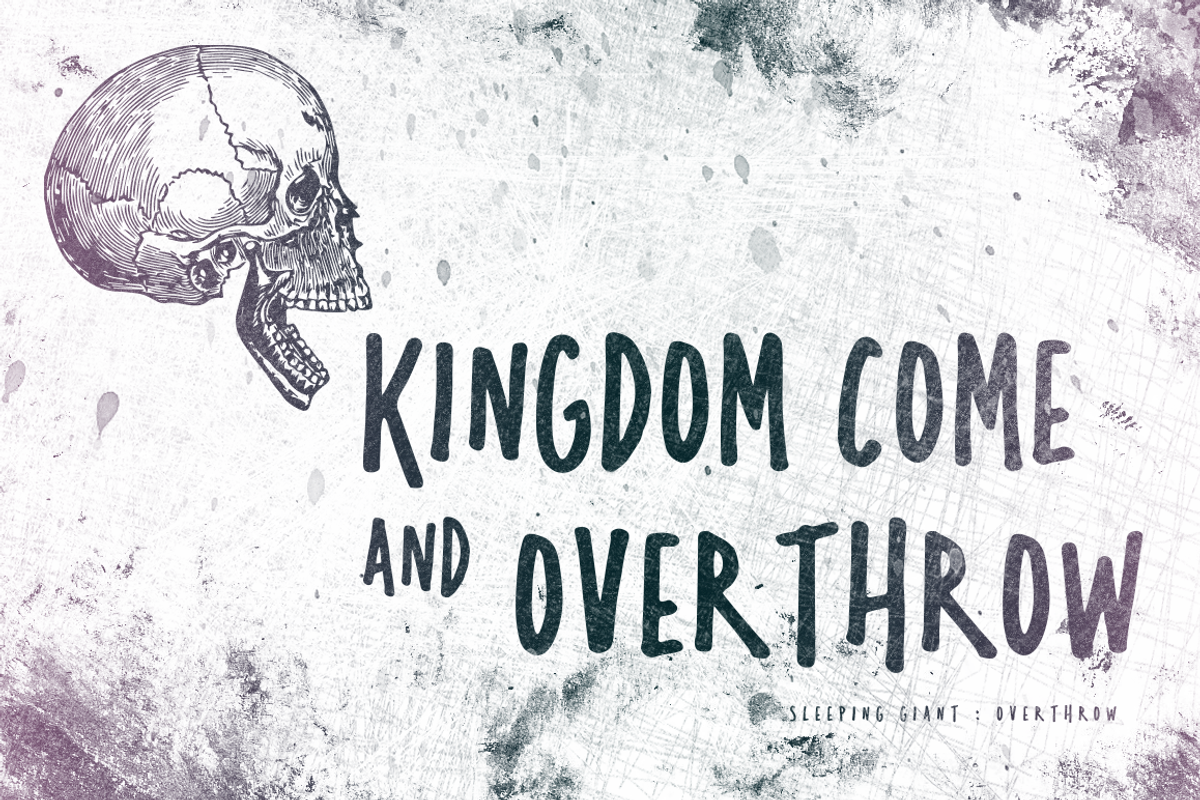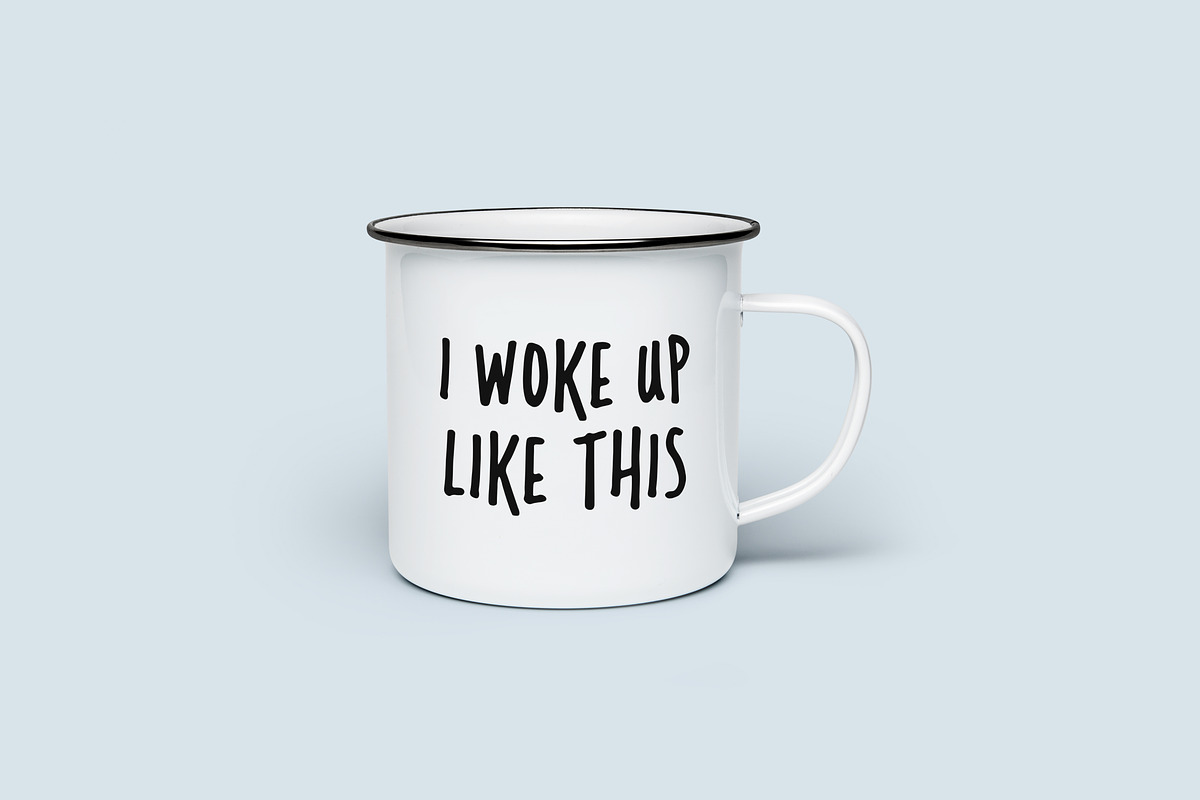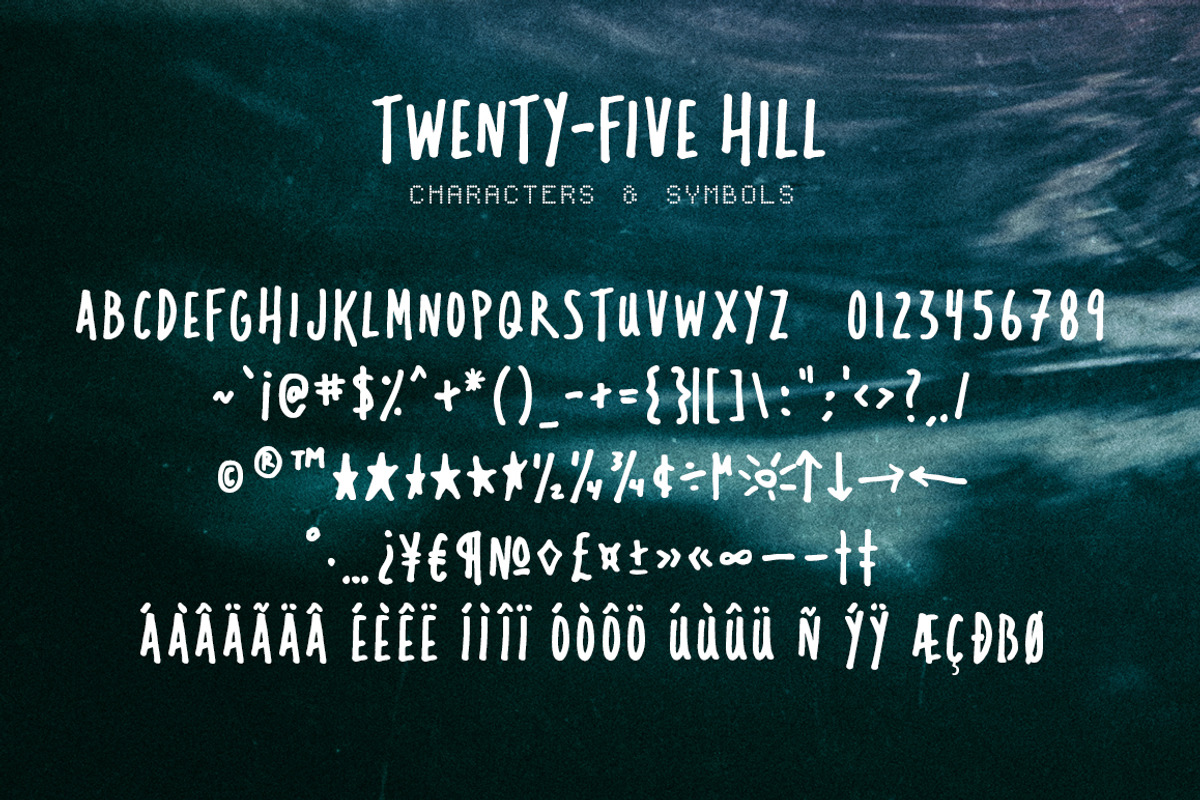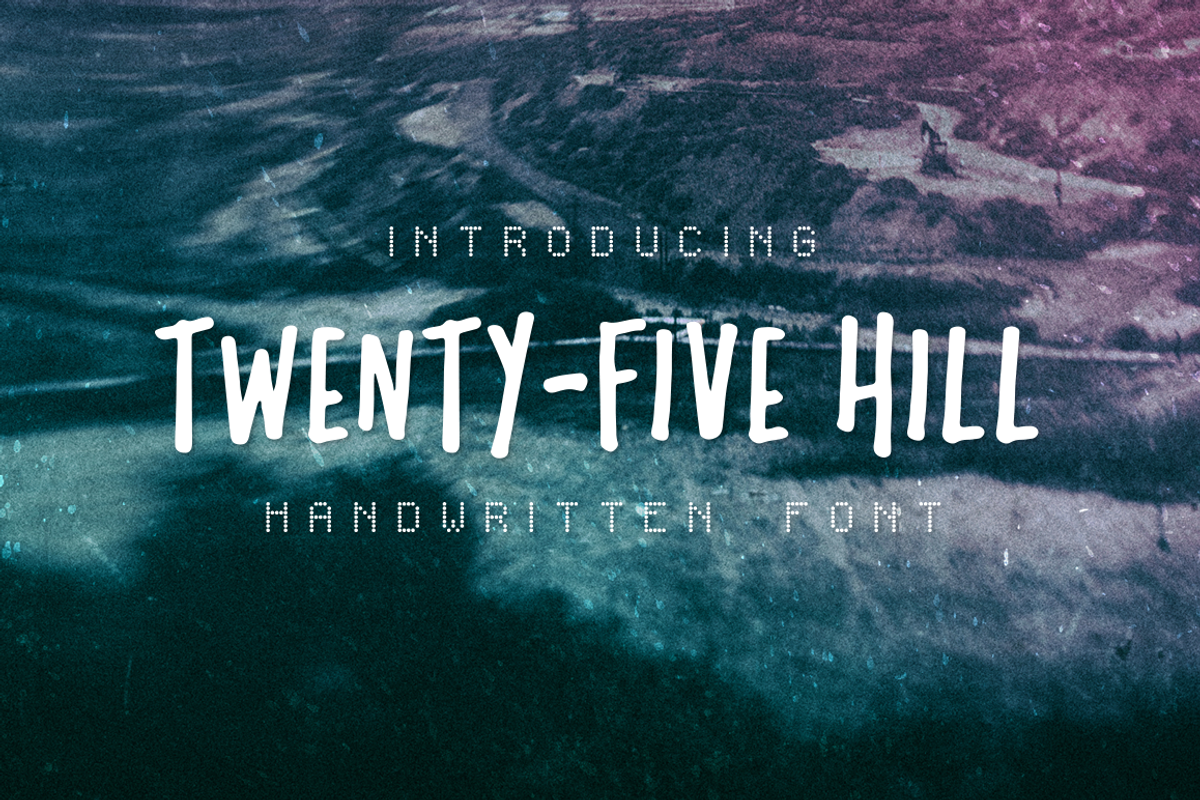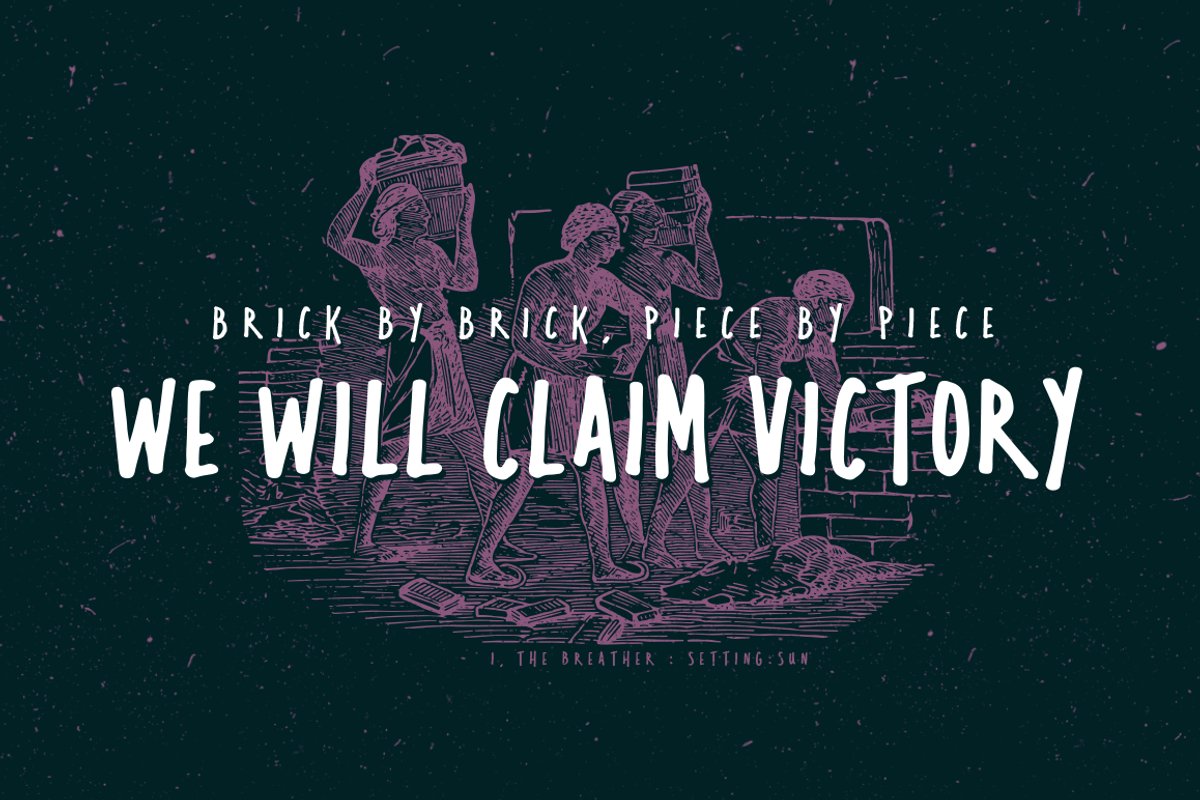
Twenty-Five Hill Font
Twenty-Five Hill Font by Graticle is a font selected for branding, posters, packaging, typography.
- Check out the seventh image for a preview of every character/symbol included in this font.
- Use Twenty-Five Hill to create creative brand packages, album covers, editorial, advertisements, posters, t-shirt designs, quotes, or heck,
- Twenty-Five Hill is packed with uppercase characters, numbers, symbols and all the characters needed for latin-based languages (multilingual
Why Twenty-Five Hill Font is worth a look
Twenty-Five Hill Font by Graticle fits naturally into Branding, posters, packaging, typography.